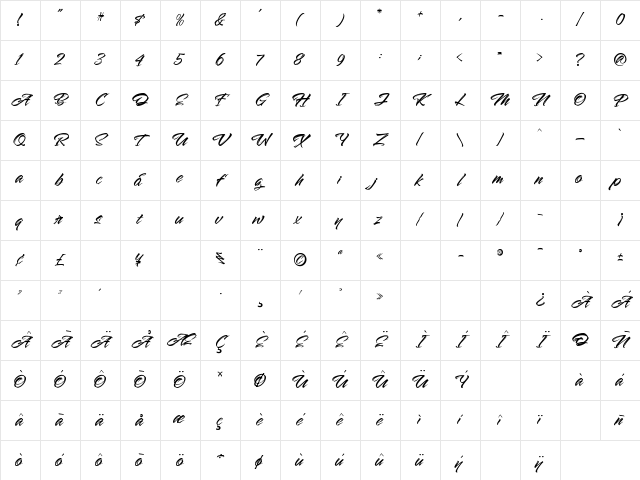
Complete The Lord Night Thorn Regular glyph index. Displaying only characters natively supported by The Lord Night Thorn Regular font.
The Lord Night Thorn is a composed and adaptable typeface that performs quietly and consistently across a wide range of design contexts.